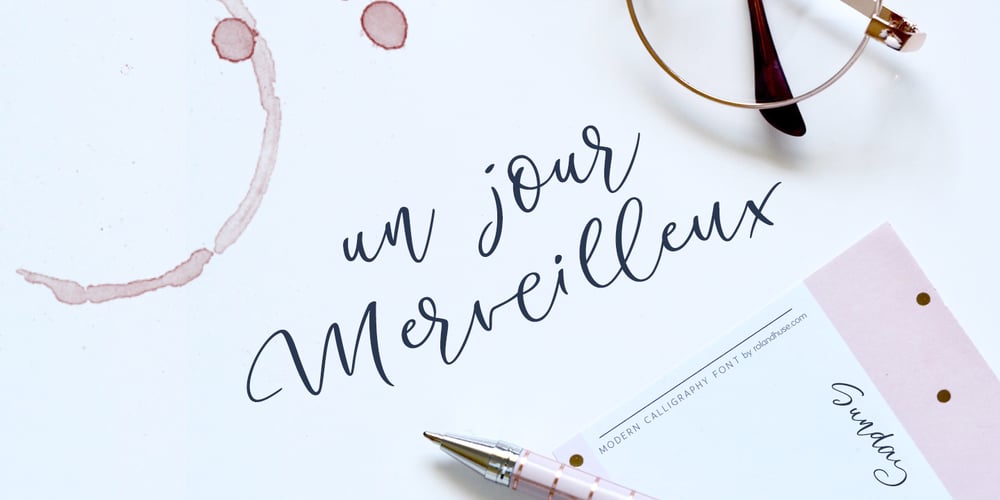
Un Jour Merveilleux
Un Jour Merveilleux font
Un Jour Merveilleux Font Family was designed by Roland Hüse and published by Roland Hüse Design. Un Jour Merveilleux contains 1 styles and family package options. Un Jour Merveilleux means “a Wonderful Day” in French. This font is a Modern Calligraphy script with stylistic alternates for all the lowercase letters and numbers for a natural flow and rhythm. Smaller and larger alternates are set to switch between each other within the Contextual Alternates OpenType rule, so make sure to enable this feature while setting text with this font. Alternatively you may select and replace characters from the Glyphs window manually.There are PUA encoded ligatures for the double letters bb, ht, li, ll, lt, on, oo, rr, ss and tt.The font set covers Eastern, Central and Western European accented Latin Languages.Hope you like this font and it will add a beautiful fresh touch to your new project!RolandImage credits: Photo by Plush Design Studio on UnsplashCoffee on Table: Kelly Lockett @kellylock